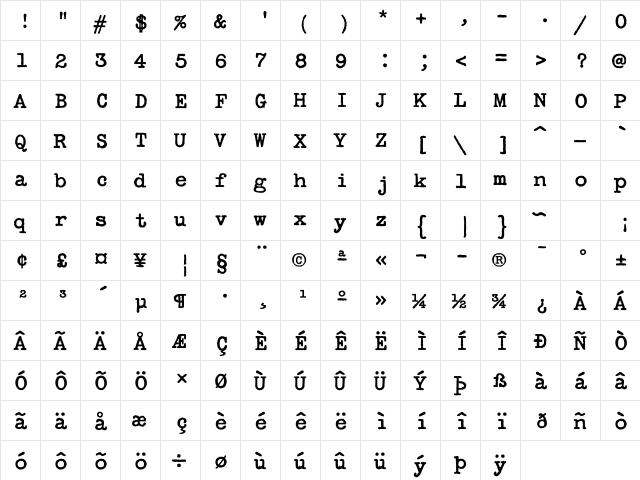
Secret Service Typewriter Regular
Design Context for Secret Service Typewriter Typeface
Secret Service Typewriter uses fixed-width spacing throughout, giving it the structured, systematic character associated with coding environments and technical documentation.
Well-suited to data-driven dashboards, coding tutorials, and any design that wants to reference the world of programming.
Pro Tip: Use Secret Service Typewriter with slightly increased line-height for extended reading — fixed-width spacing can feel dense in longer passages without extra breathing room.